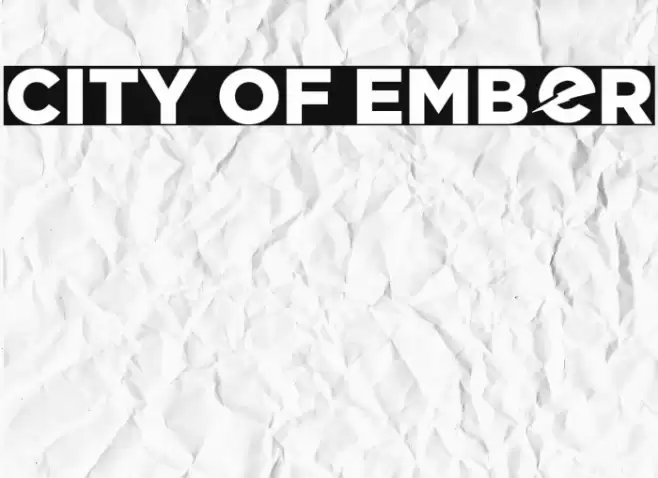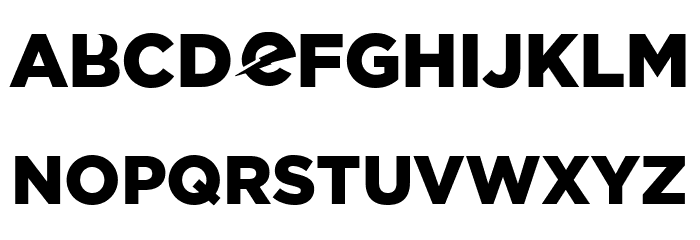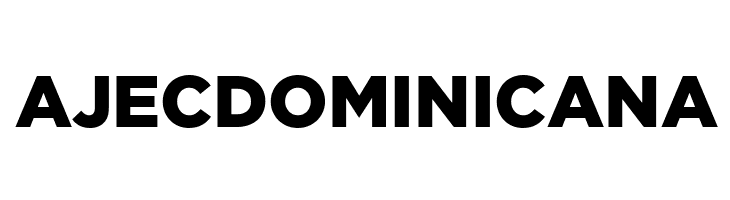
City of Ember Font
City of Ember Description
This font features a bold, modern design with a strong geometric structure. The characters are crafted with clean, sharp lines and a consistent stroke width, giving it a robust and impactful appearance. The uppercase letters are particularly striking, with a uniform height and width that create a cohesive look. The font's design is minimalistic yet powerful, making it suitable for a variety of applications where clarity and emphasis are essential. Its boldness ensures that it stands out in any context, while the geometric precision adds a touch of sophistication.
A bold, modern font with a geometric and impactful design from Uncategorized fonts.